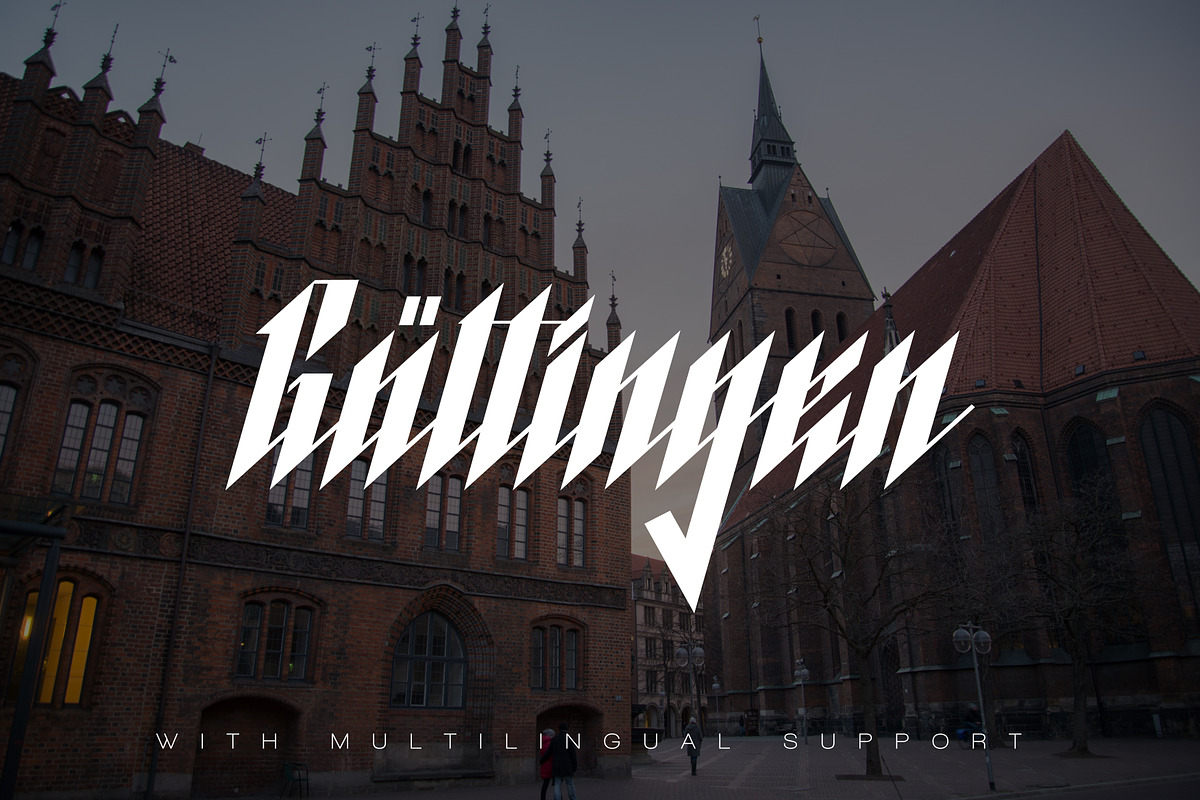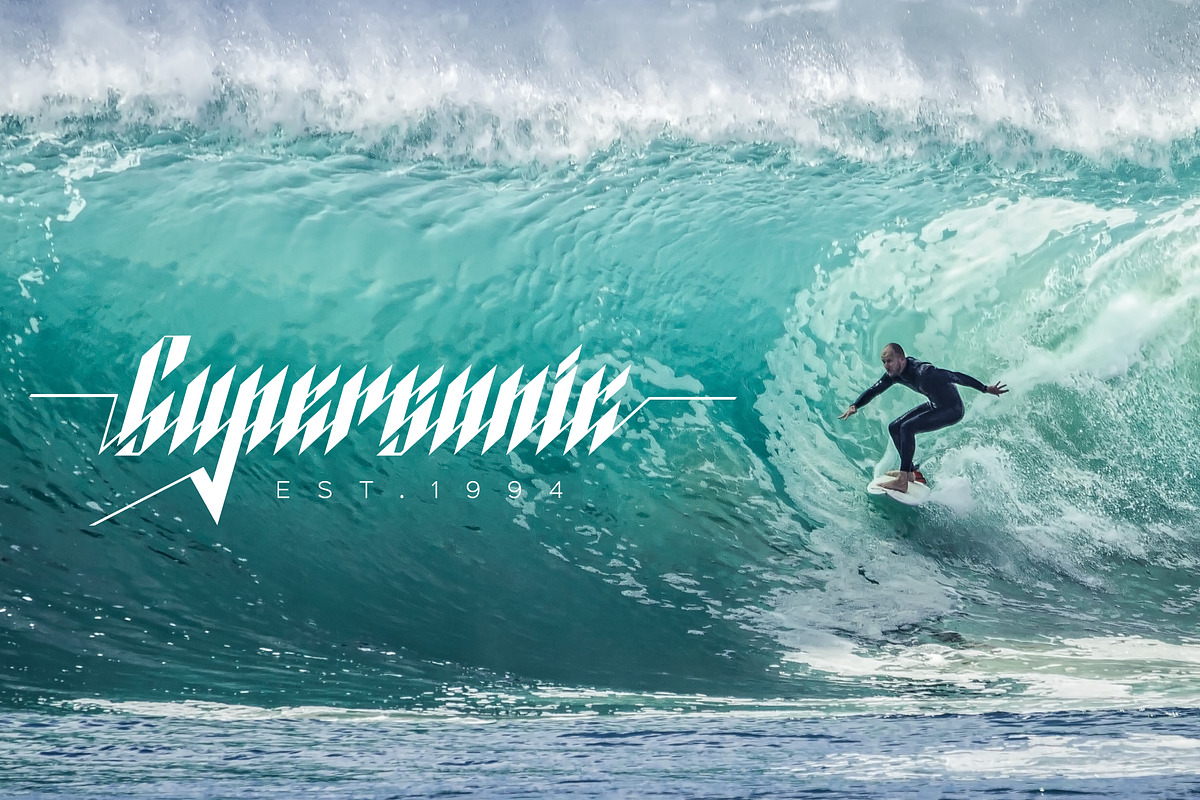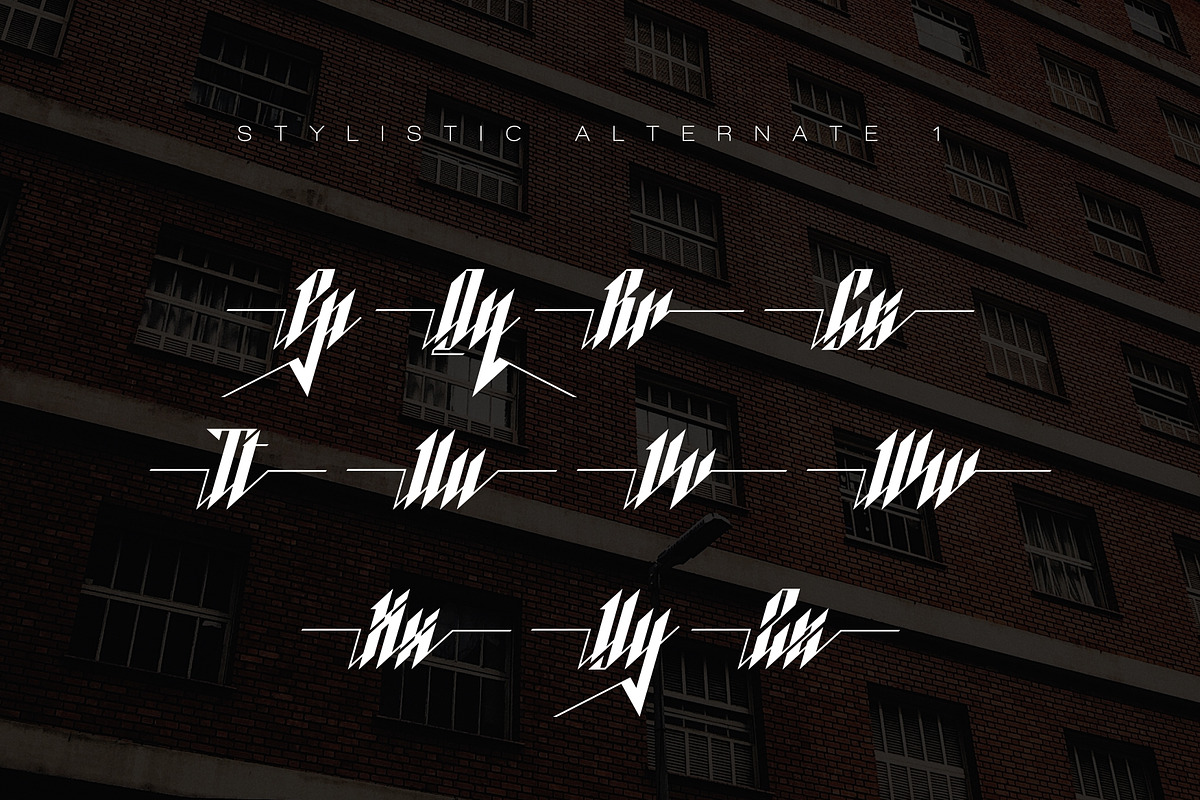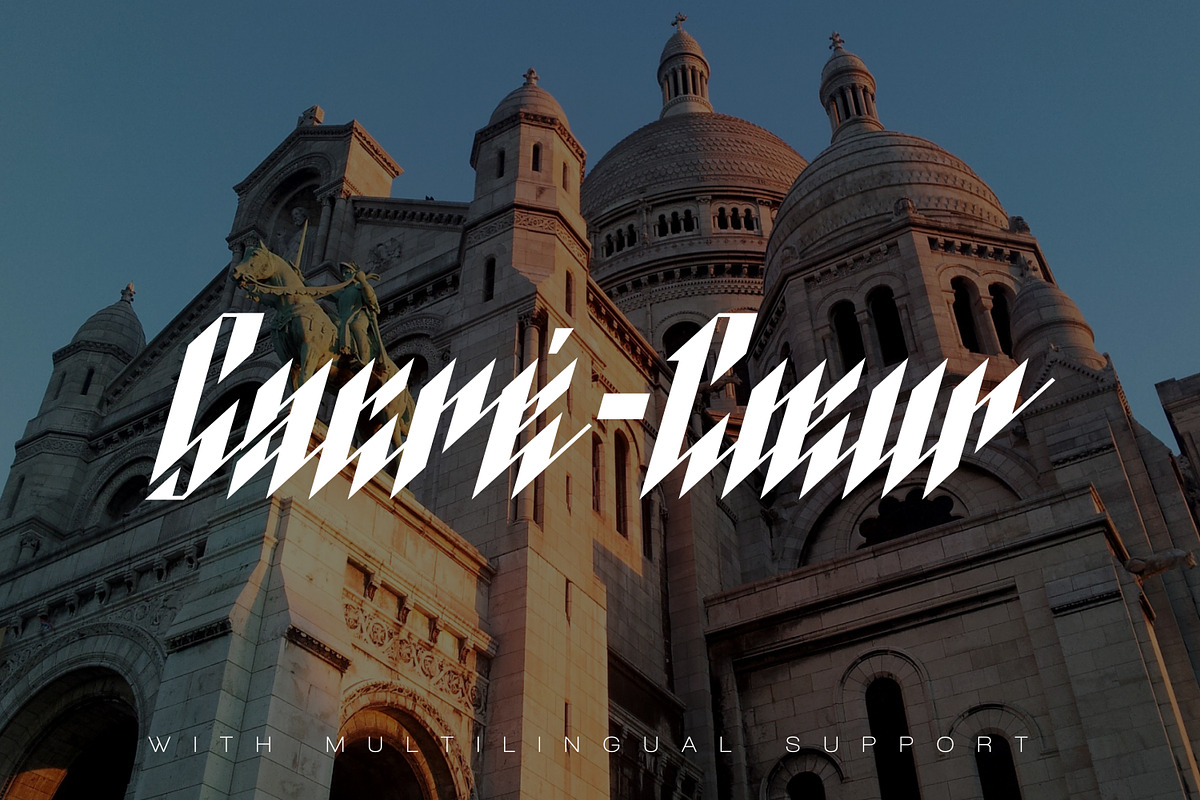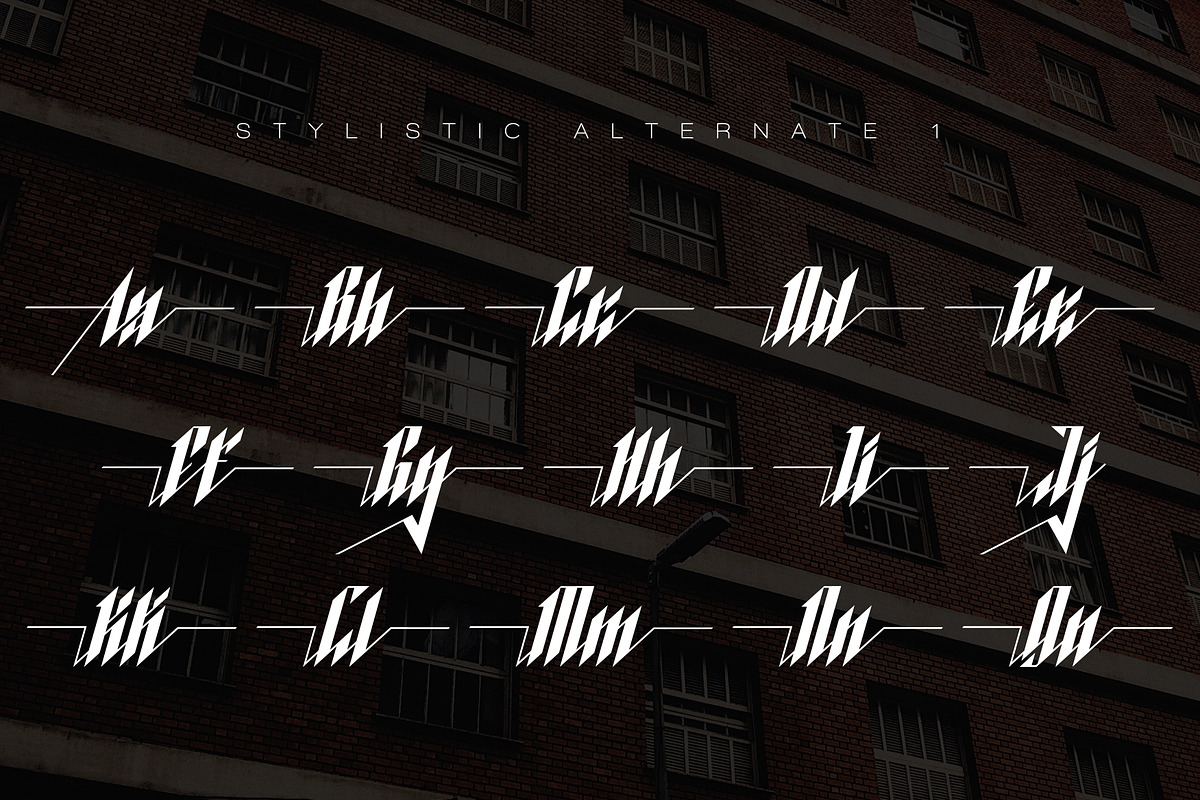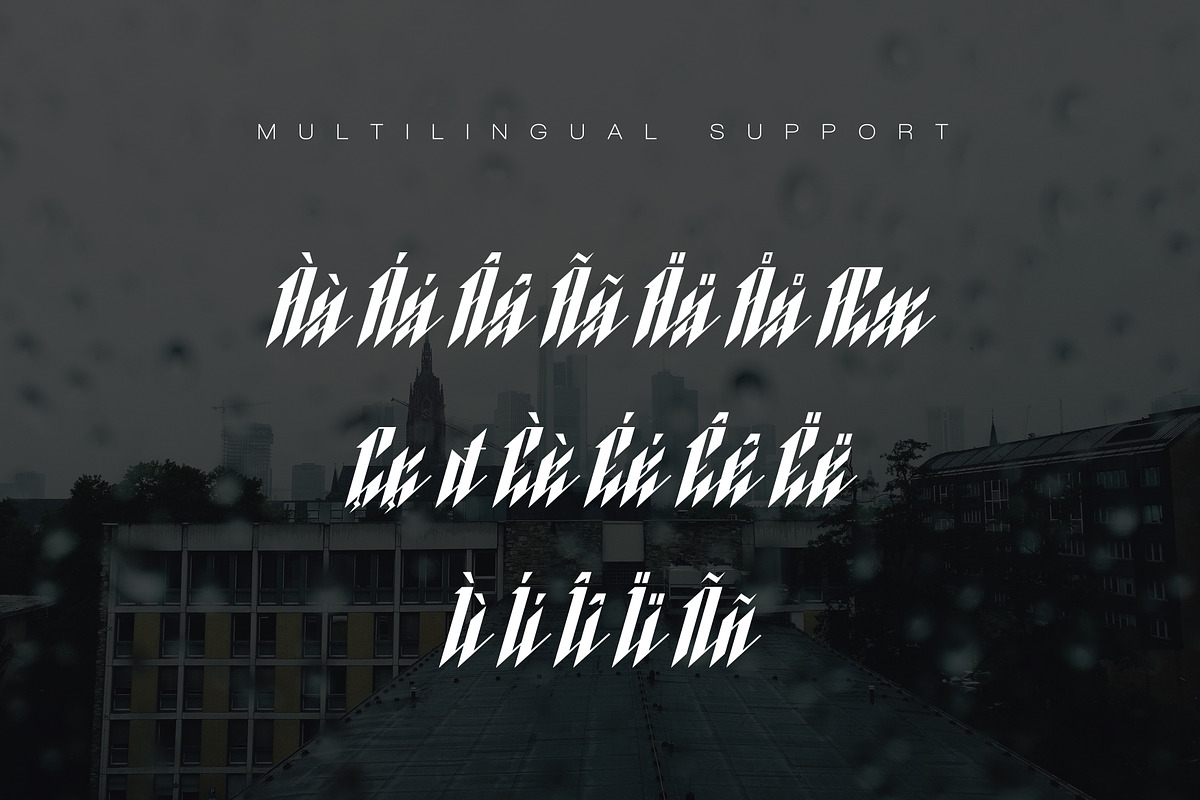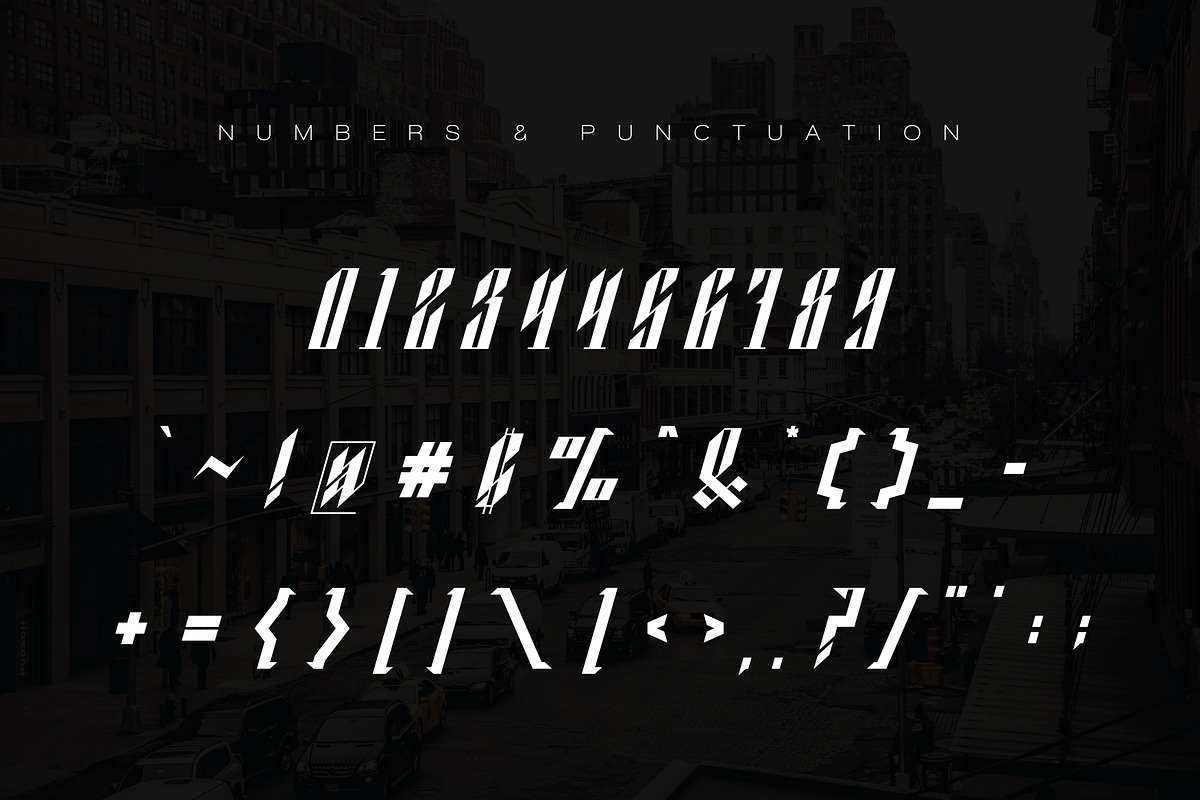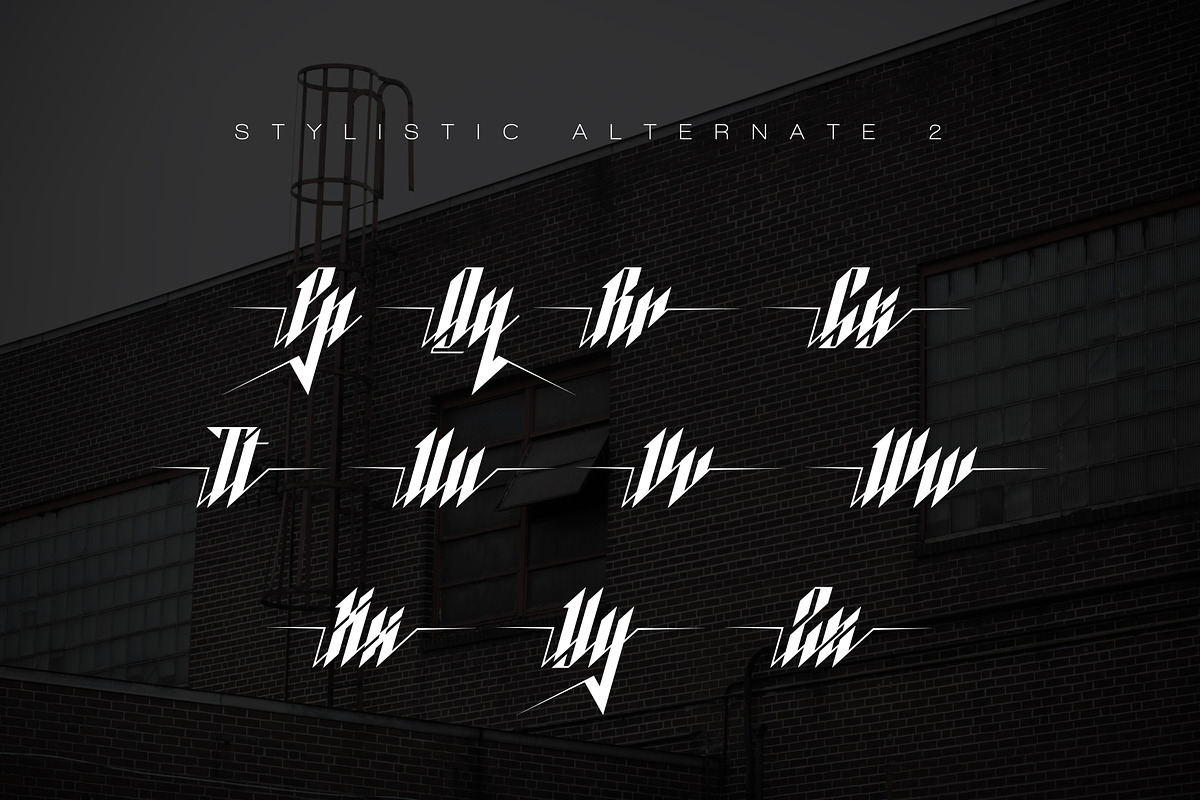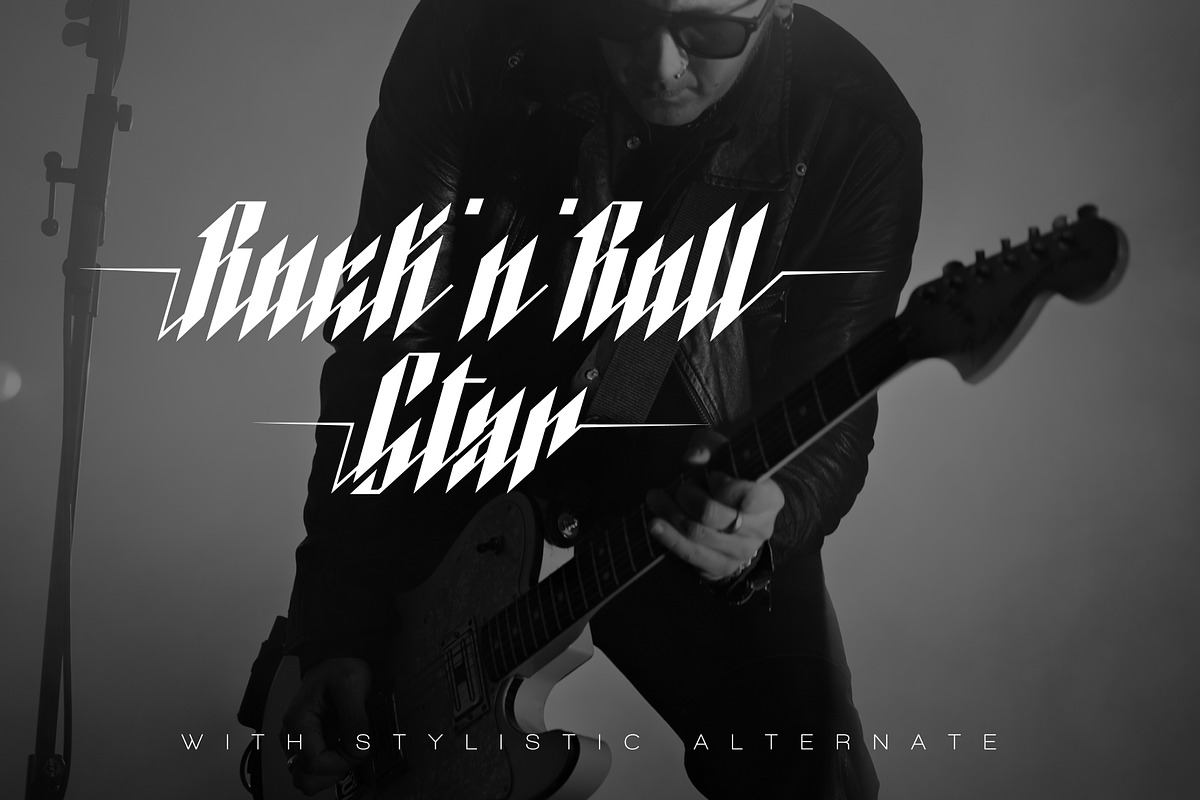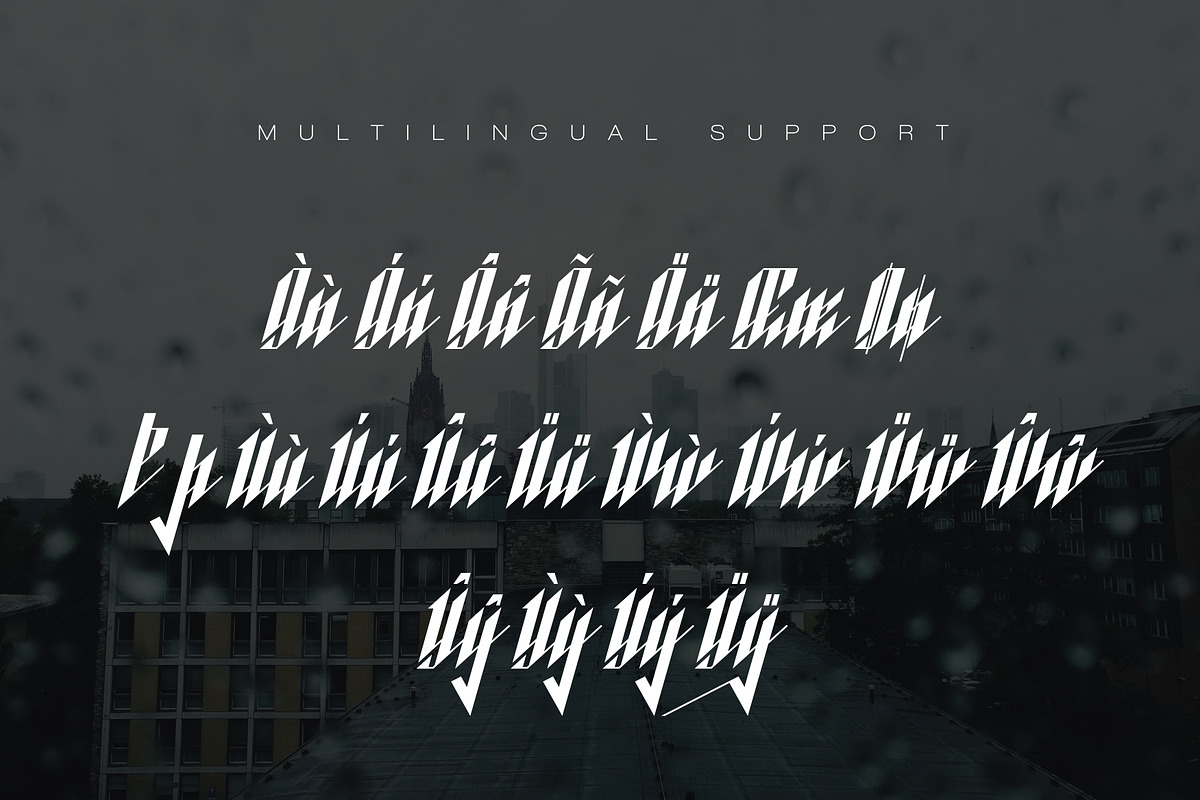
Blackburn - Modern Blackletter Font
Blackburn font is inspired by blackletter and modern hand lettering fonts. This font is perfect for design project like logo, poster, magazine, cover art, advertisement, merchandise, etc.
Upper case and lower case, numbers, punctuation
Stylistic alternate